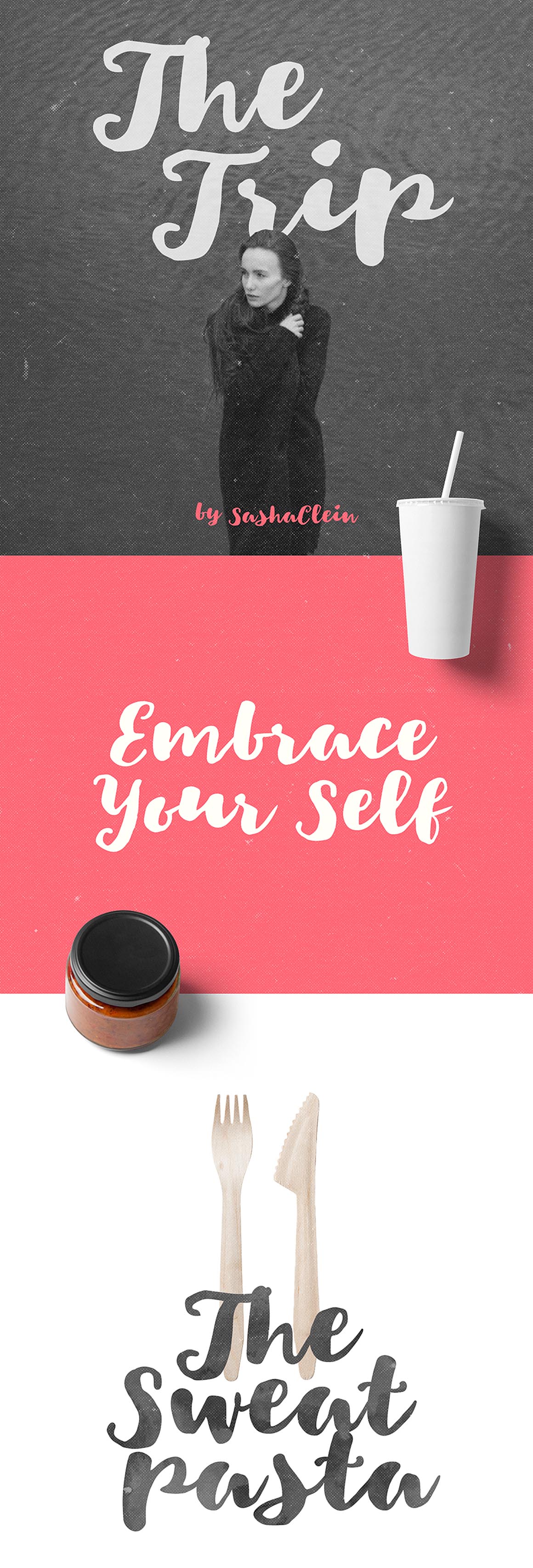
Cutie Star – Free Font
This amazing script custom font is from Artimasa and Freedesignresources. Great handdrawn look script font with brush style. Download and enjoy :)